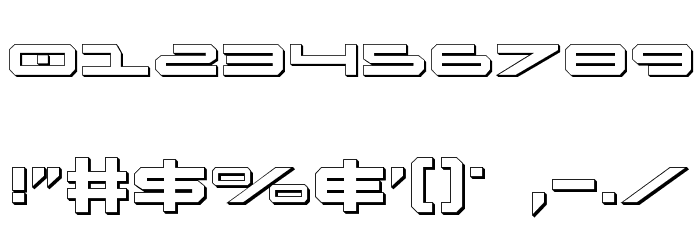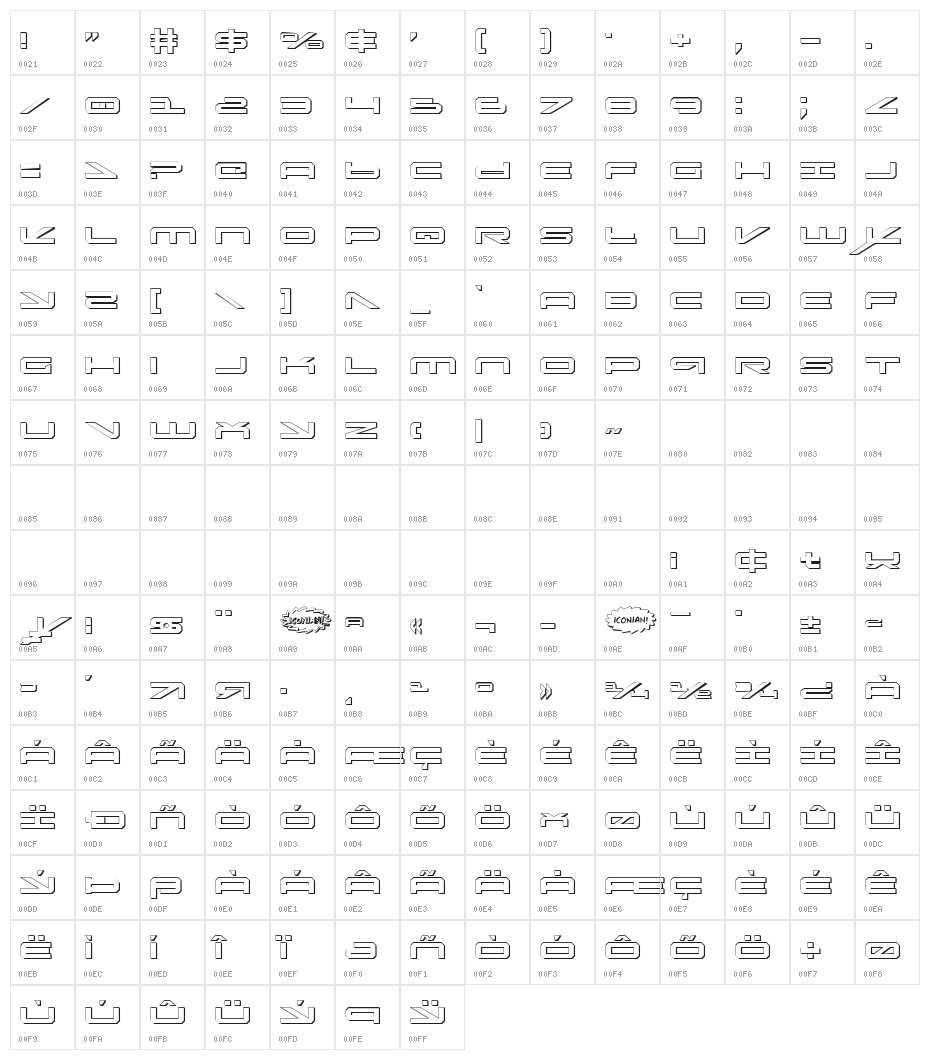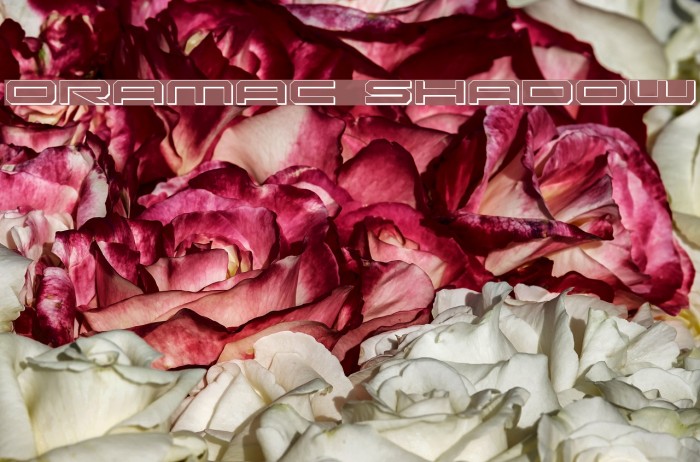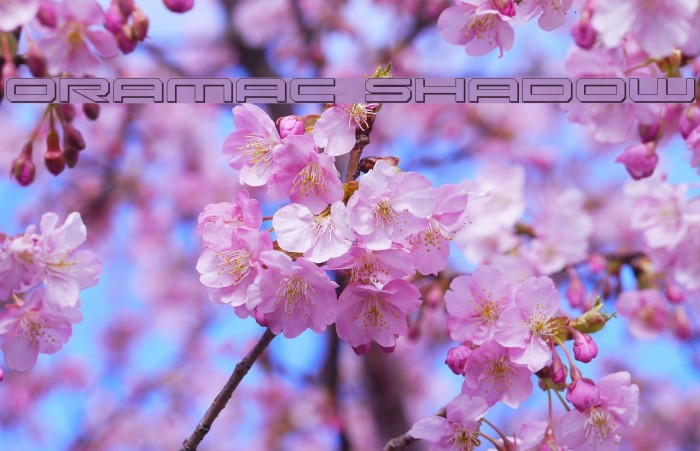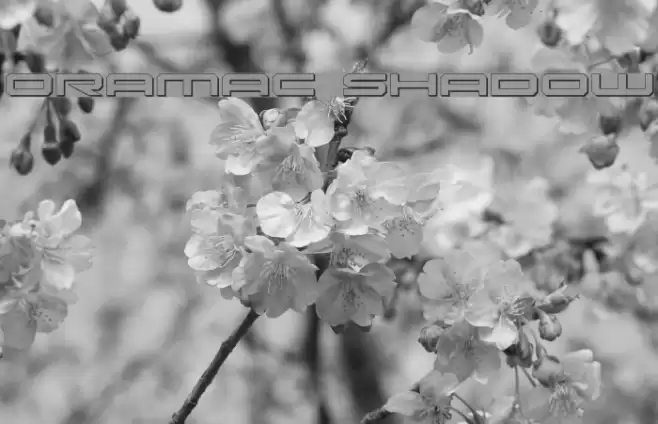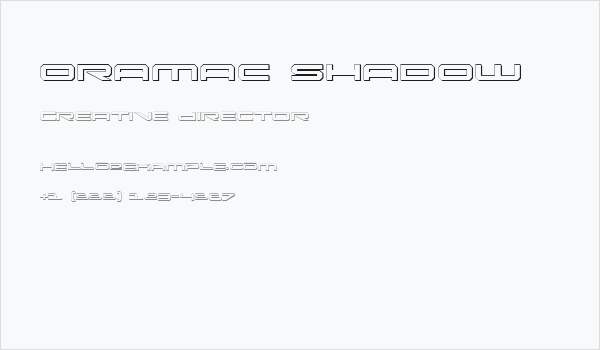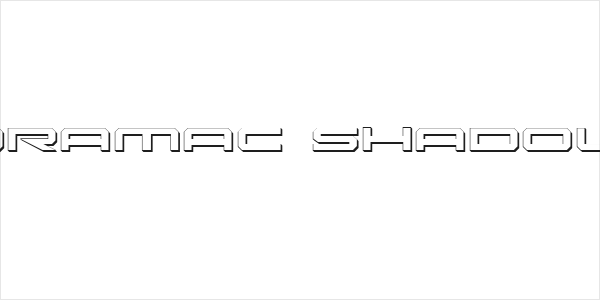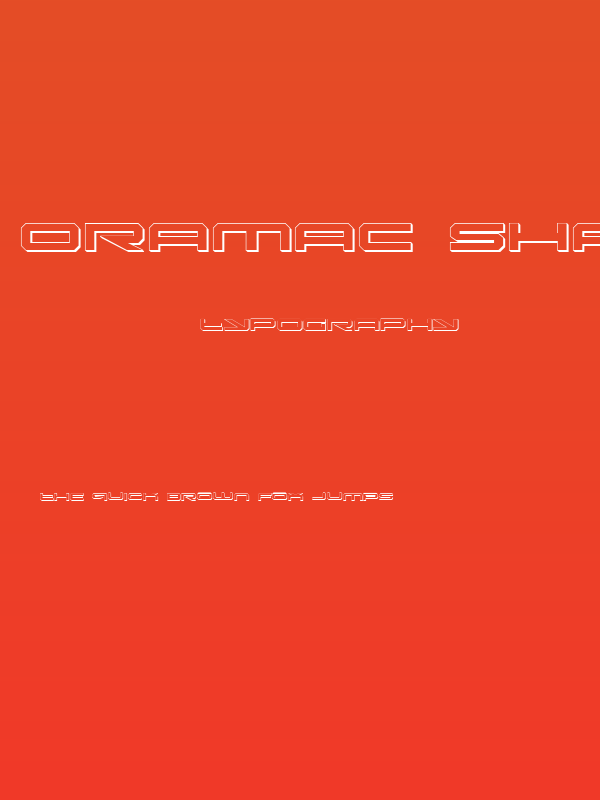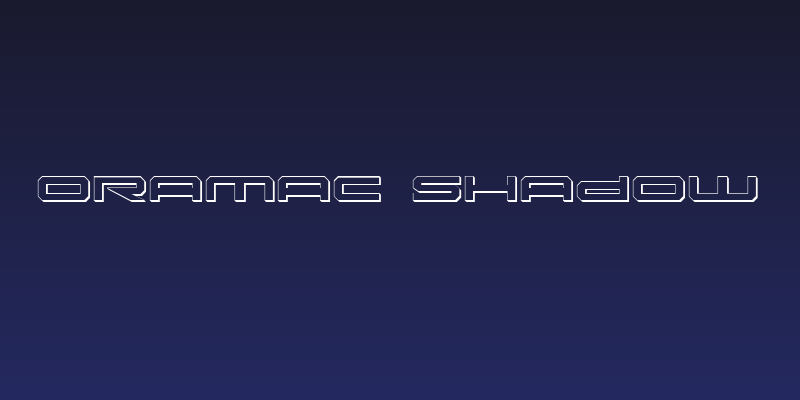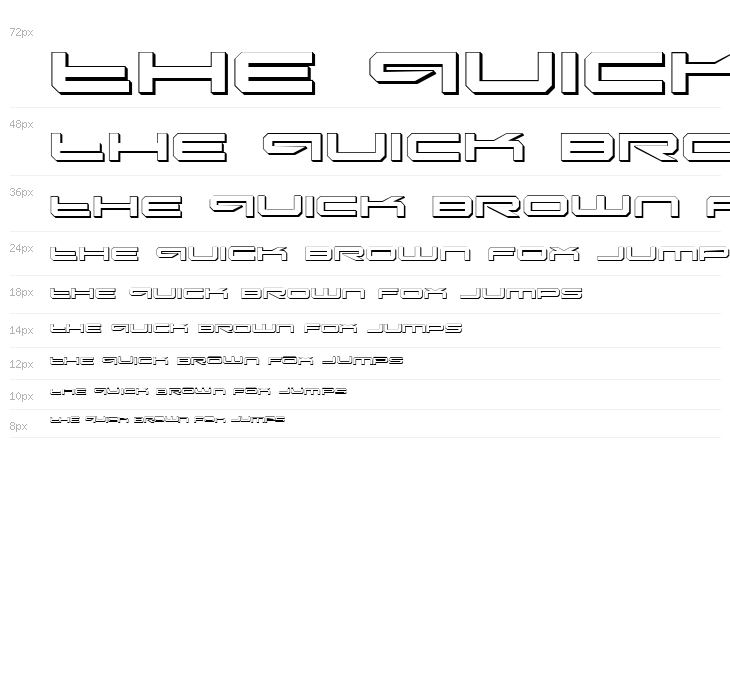
Oramac Shadow Font
Oramac Shadow Description
This font features a futuristic and geometric design with a distinct shadow effect that gives it a three-dimensional appearance. The characters are outlined, creating a hollow look that emphasizes the shadow detail. The uppercase and lowercase letters maintain a consistent style, with sharp angles and clean lines. The numbers and special characters are designed to match the overall aesthetic, making the font suitable for modern and tech-themed projects. The spacing between characters is uniform, ensuring readability while maintaining its unique style.
| Proposed Projects | Ideal for sci-fi movie posters, tech company logos, video game titles, and modern digital interfaces. |